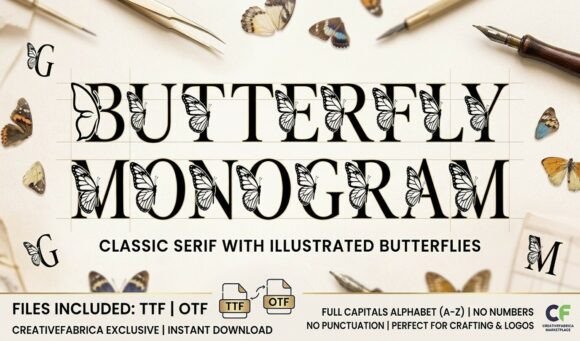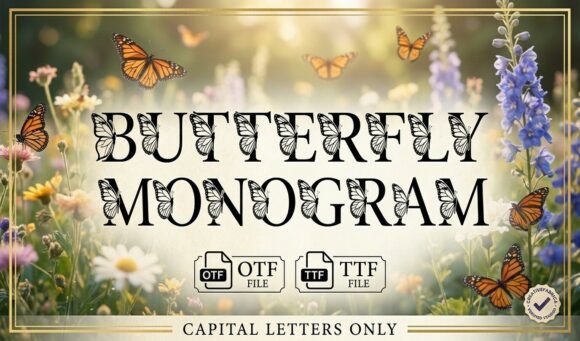
Bringing Enchantment to Your Designs with the Butterfly Monogram Font
I’ll never forget the moment I stumbled upon the perfect font for a client’s wedding stationery project. I had been searching for what felt like hours, trying out font after font, but nothing seemed quite right. That was until I discovered the Butterfly Monogram font. Its delicate, whimsical charm instantly captured the essence of the couple’s special day, and I knew I had found the one. If you’re a designer, crafter, or creative hobbyist looking to add a touch of magic to your projects, you’re in luck! In this article, we’ll dive into the world of the Butterfly Monogram font and explore its many uses, features, and applications.
A Closer Look at the Butterfly Monogram Font
The Butterfly Monogram font is a beautifully delicate display font that replaces the left side of classic, elegant serif letters with a highly detailed, gorgeous butterfly wing. This unique feature makes it perfect for crafters, makers, and designers looking to create stunning personalized items. Whether you’re designing monogrammed tote bags, custom t-shirts, personalized mugs, tumblers, wedding stationery, or elegant logo designs, this font is sure to make your creations stand out.
What I Love About the Butterfly Monogram Font
- ✨ Elegant and delicate design that’s perfect for feminine branding and wedding stationery
- ✅ Highly detailed butterfly wing designs that add a touch of whimsy to any project
- 💻 Easy to use and customize, with OpenType features and glyphs that make it simple to create stunning monograms
While the Butterfly Monogram font is a stunning addition to any design project, there are a few things to keep in mind. For example, ⚠️ the font may not be suitable for very small text sizes, as the intricate details of the butterfly wings may become lost. Additionally, 🤔 some users may find that the font requires a bit of manual kerning to achieve the perfect spacing.
The Story Behind the Butterfly Monogram Font
The Butterfly Monogram font was inspired by the beauty and wonder of nature. According to the font’s designer, the idea for the font came from a love of butterflies and a desire to create a font that would capture their delicate, whimsical charm. The result is a font that’s perfect for adding a touch of magic to any design project.
| Is the Butterfly Monogram font suitable for small text sizes? | While the Butterfly Monogram font is a stunning addition to any design project, it may not be suitable for very small text sizes, as the intricate details of the butterfly wings may become lost. |